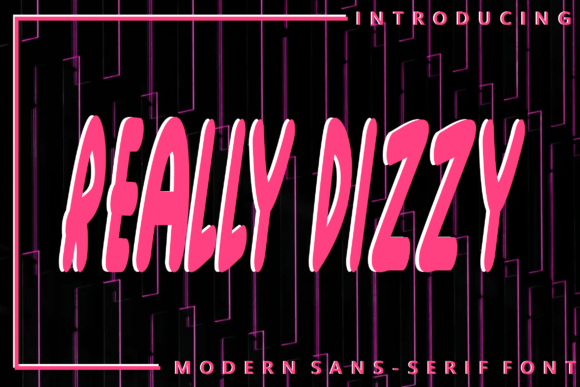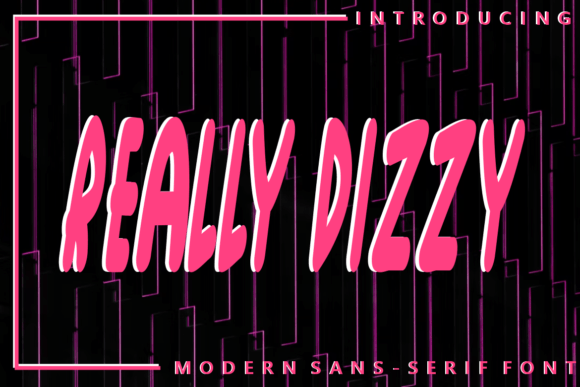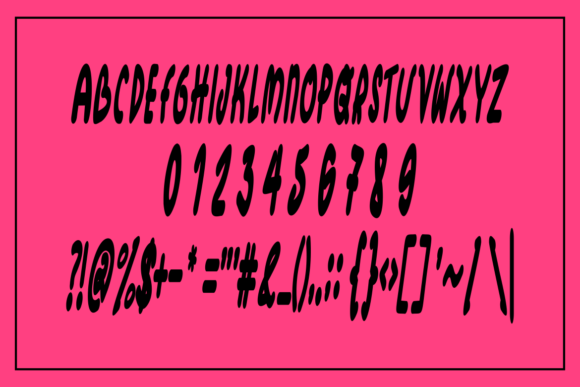
Really Font: A Playful Handwritten Font for Cute Designs
About the Really Font
The Really Font is here to transform your projects with its distinctive character and style. Really is a fun and quirky handwriting font perfect for use on cheerful topics. Very suitable for children’s themed designs, especially when combined with bright colors.
Really Font’s playful energy makes it ideal for children’s books, greeting cards, and playful branding projects. It works exceptionally well in headlines, short quotes, and logos where its quirky charm can shine. However, its informal nature makes it unsuitable for body text or lengthy paragraphs, and it should be avoided in applications requiring high readability, such as website UI or instructional manuals.
Pairing Really Font effectively requires considering its hand-drawn aesthetic. A clean sans-serif like Open Sans or Lato provides a strong contrast and enhances readability when used alongside it for supporting text. For a more whimsical feel, a playful script font could be incorporated for secondary elements. Avoid pairing it with overly serious or geometric fonts, as this would clash with its personality.
The overall personality of Really Font is undeniably cheerful and friendly, conveying a sense of lightheartedness and approachability. This makes it a perfect choice for brands targeting a young or family-oriented audience.